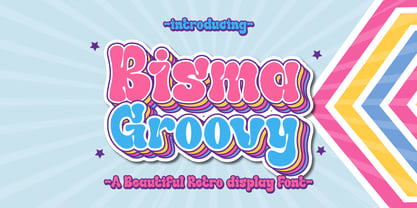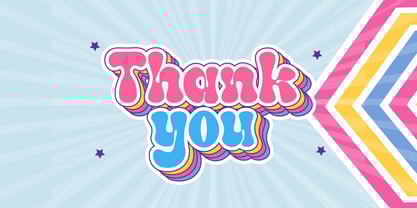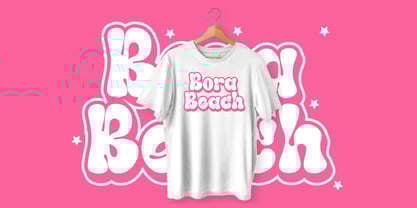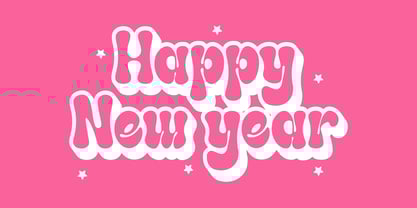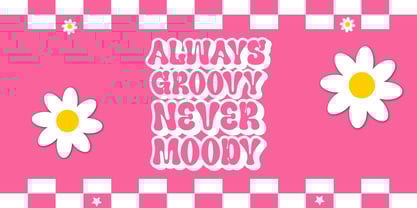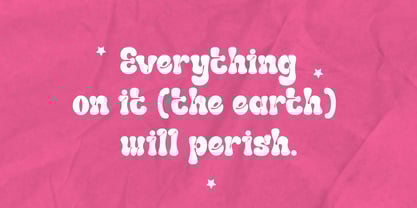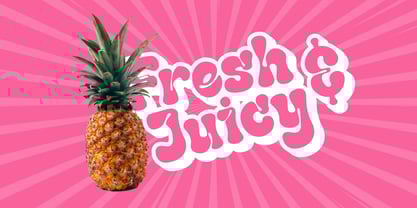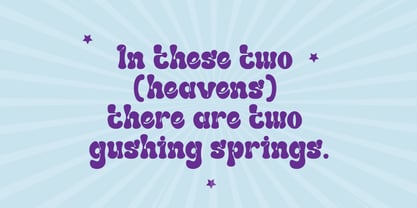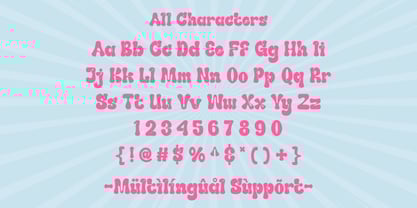
Bisma Groovy
by Patlot Digital Studio
The Bisma Groovy Font Family was designed by Gugun Gunawan and published by Patlot Digital Studio. Bisma Groovy contains 1 styles.
Bisma Groovy is a retro-inspired font full of charisma and vibrancy. Best suited for designs that reflect the carefree spirit of the hippie era, this font finds its strength in authenticity and playfulness. The versatile essence of Bisma Groovy makes it an invaluable addition to a wide range of projects, including blog posts, logos, branding initiatives, advertisements, invitations, and greeting cards. Enrich your agendas, photo collections, decorative elements, and other creative applications with Bisma Groovy, making them truly captivating and evoking memories of a bygone era. Watch this distinctive font elevate your work to a new level while adding a touch of vintage charm!
Designers: Gugun Gunawan
Publisher: Patlot Digital Studio
Foundry: Patlot Digital Studio
Design Owner: Patlot Digital Studio
Patlot Digital Studio was founded in 2022 and is managed by Gugun Gunawan. I love drawing letters. I want to continue developing my creativity and using my passion to provide greater benefits for myself and the design community. I founded Patlot Digital Studio to help designers choose their projects. I create handwritten fonts, script fonts, and display fonts. Now I pursue my new passion full-time from my home studio.